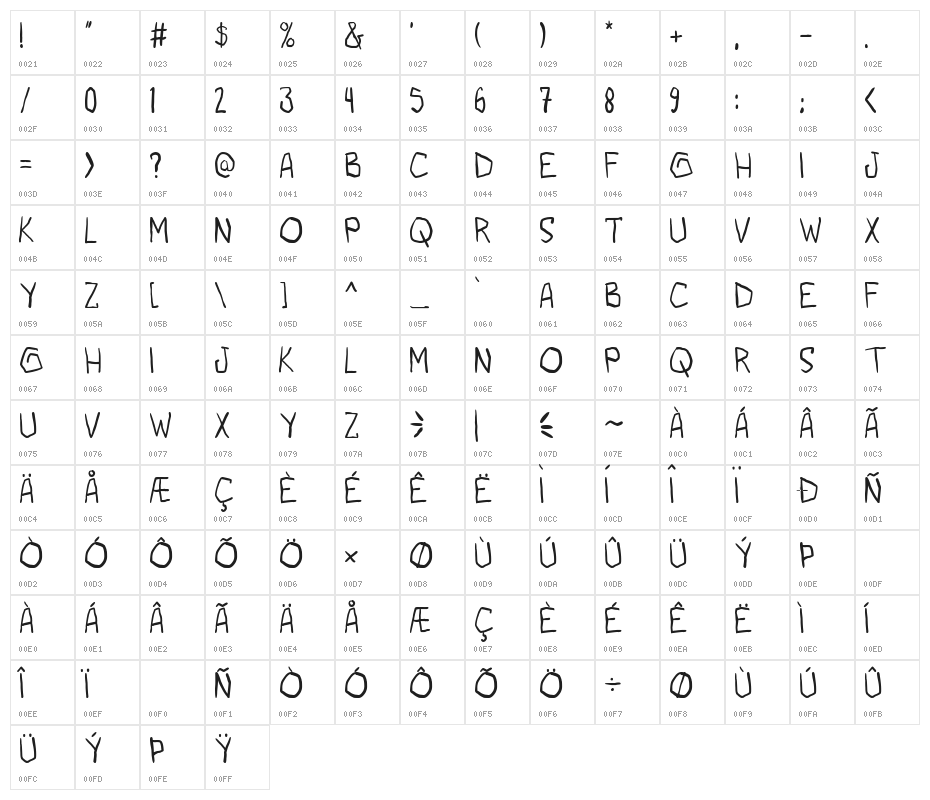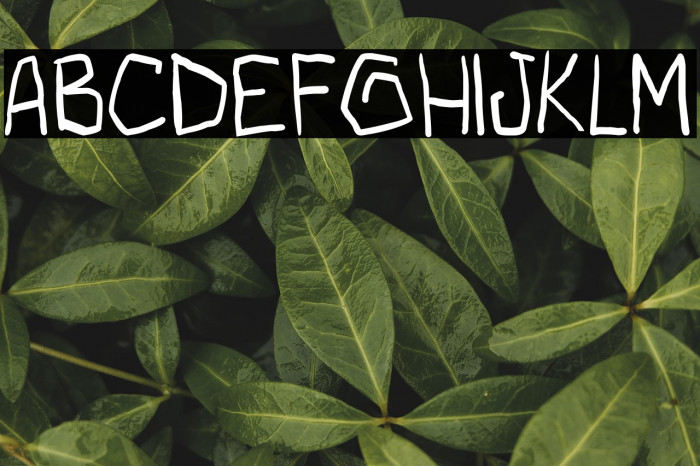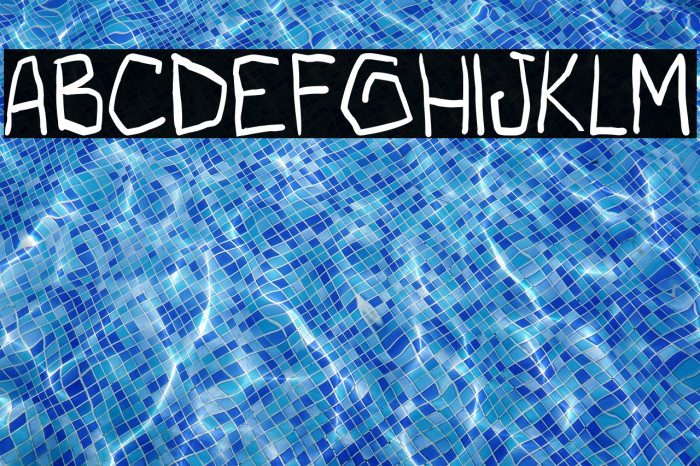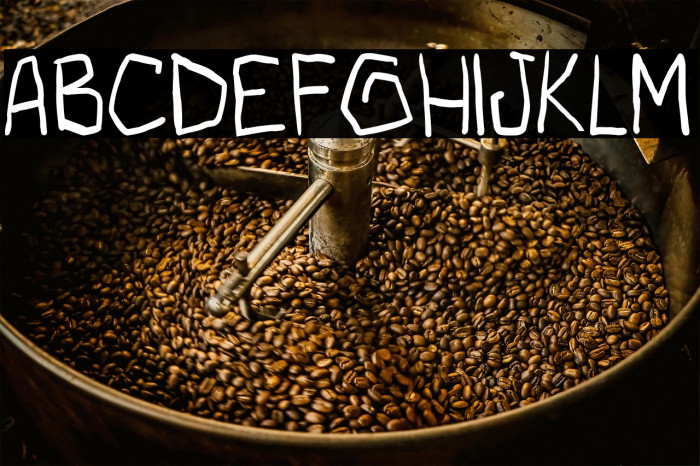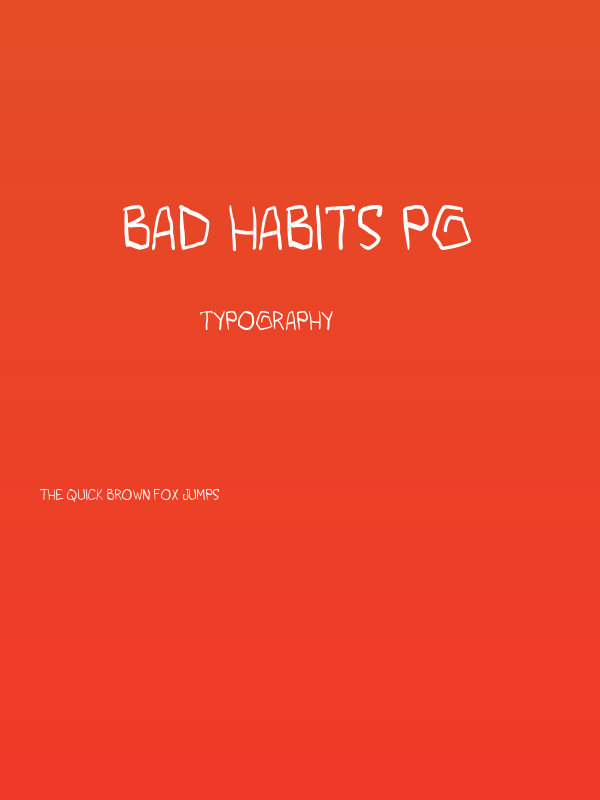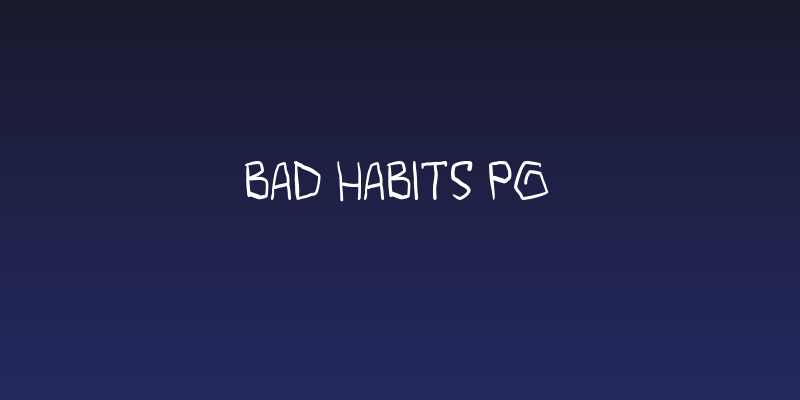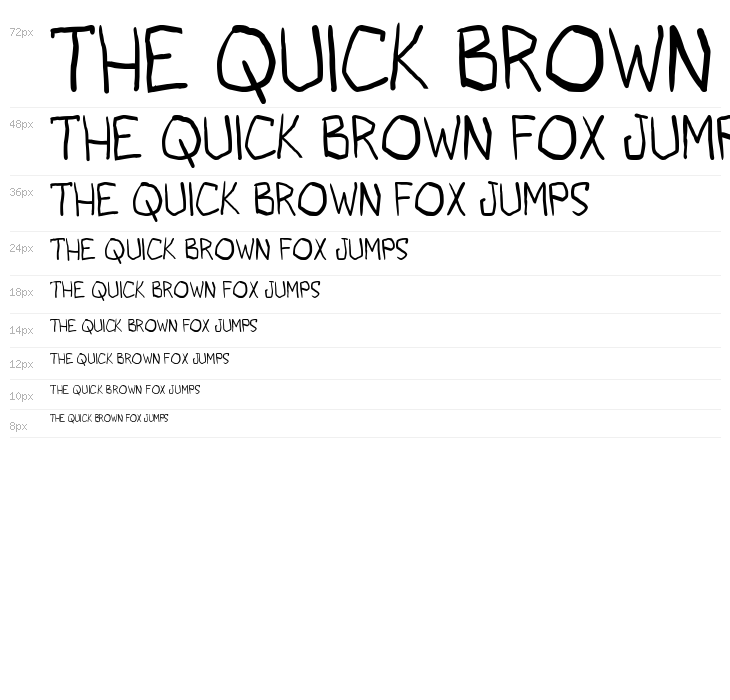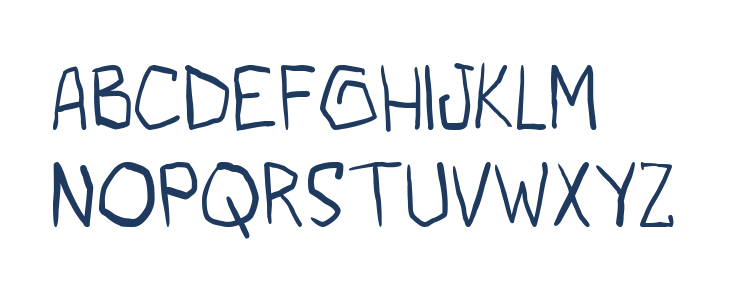
bad habits pg Font
bad habits pg Description
This font exhibits a playful and slightly chaotic handwritten style, characterized by uneven strokes and a casual appearance. The letters are irregularly shaped, giving a sense of spontaneity and creativity. The uppercase and lowercase letters maintain a consistent style, with a slightly rough texture that adds to its informal charm. The numerals and special characters follow the same aesthetic, ensuring a cohesive look across all glyphs. This font's unique personality makes it stand out, ideal for projects that require a touch of individuality and flair.
| Proposed Projects | Ideal for creative projects such as posters, invitations, and branding materials that seek a personal touch. |